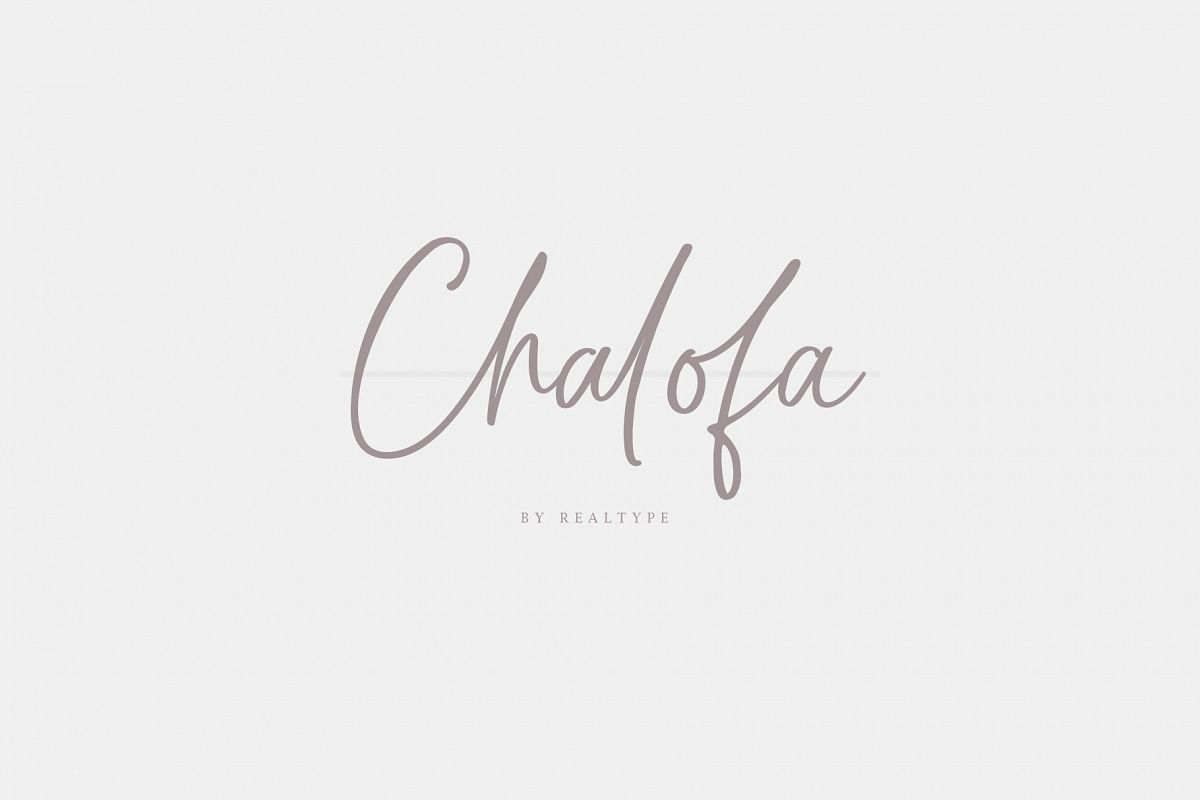
Chalofa
Chalofa Fonts consist of sophisticated, elegant, classy and modern handwriting. With a little dirty curvature and made
from the typography of new trends, Chalofa has a smooth wet ink suitable for adding a modern and classy
touch to your project.
Perfect for branding, marriage, social media, product design, stationery, etc. Calofa to add to all projects
where hand touch is needed.
Try mixing your design with this font. Don't hesitate to pair with serif or serif in your work idea. Find interesting
layouts to complement your project.
Calofa also has several features that you can see in the presentation picture.